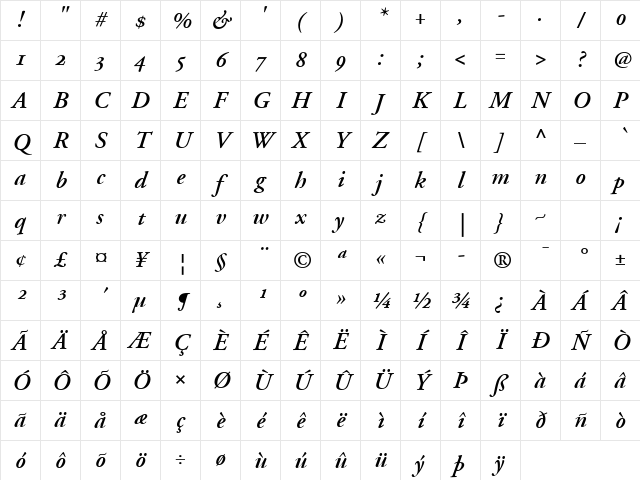
AGaramond RegularSC Bold Italic
Design Context for AGaramond RegularSC
AGaramond RegularSC is a composed and adaptable typeface that performs quietly and consistently across a wide range of design contexts. The slanted form adds forward momentum and visual energy. Its bold stroke weight gives it real presence on the page.
Pro Tip: Use AGaramond RegularSC for emphasis, pull quotes, and subheadings where its slanted energy can add rhythm to the layout.